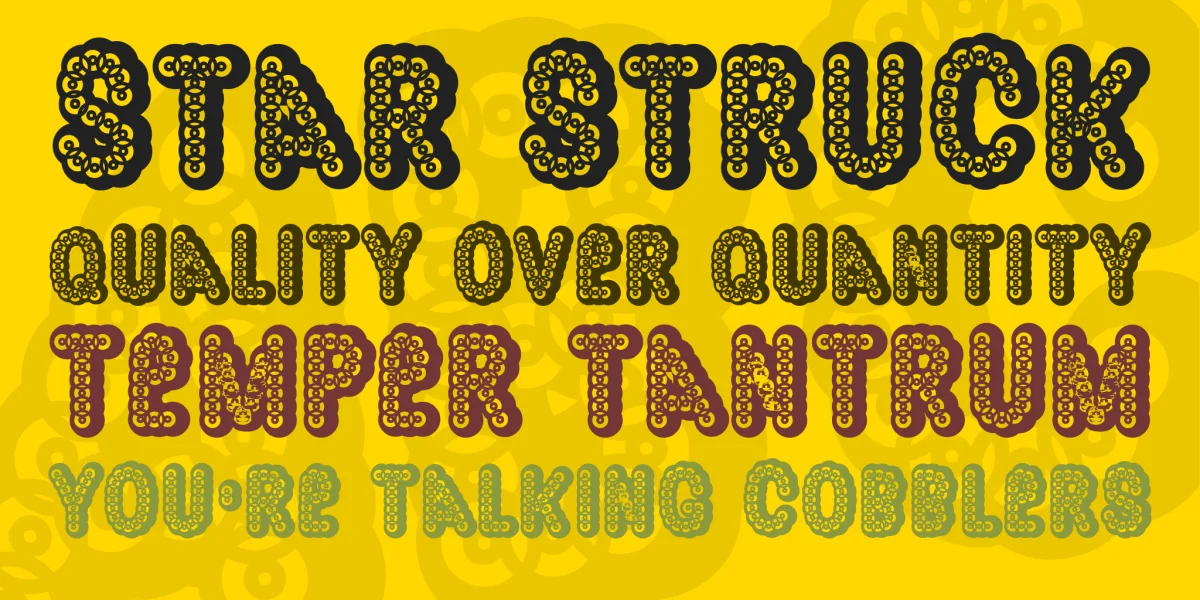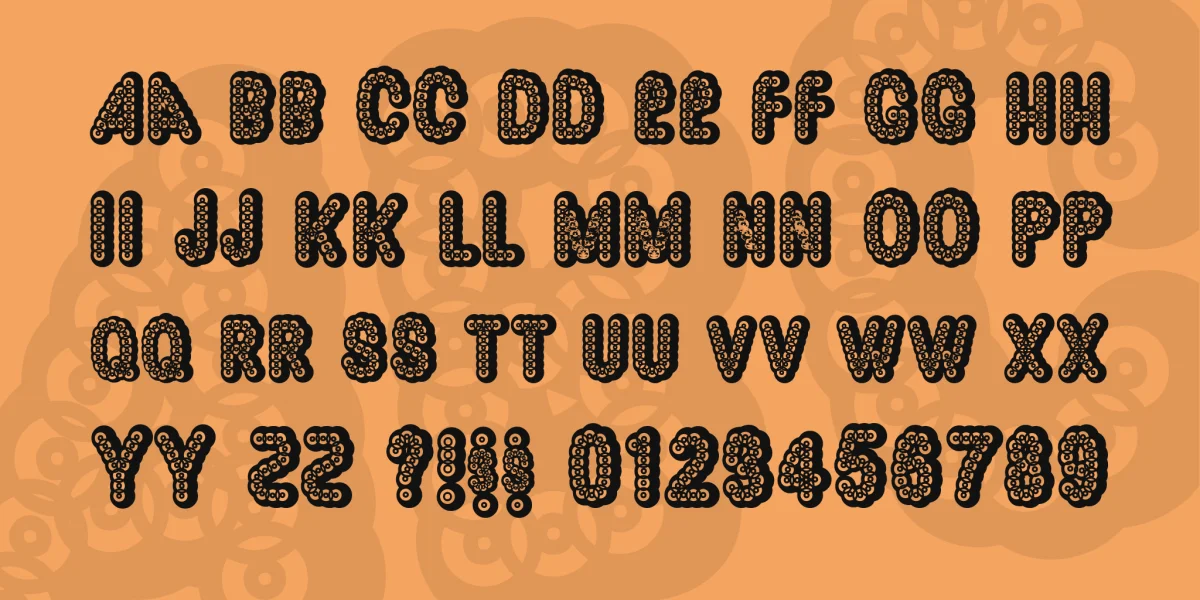
While making the preview for this font, I thought it looked like the Pez font. I guarantee you that wasn't my intentions. I wanted to make a seventies disco font as a tribute to the new movie coming soon to a theatre near you about the disco days of the famous New York niteclub Studio 54. I love the disco era. If you don't, I think you will still like this font.